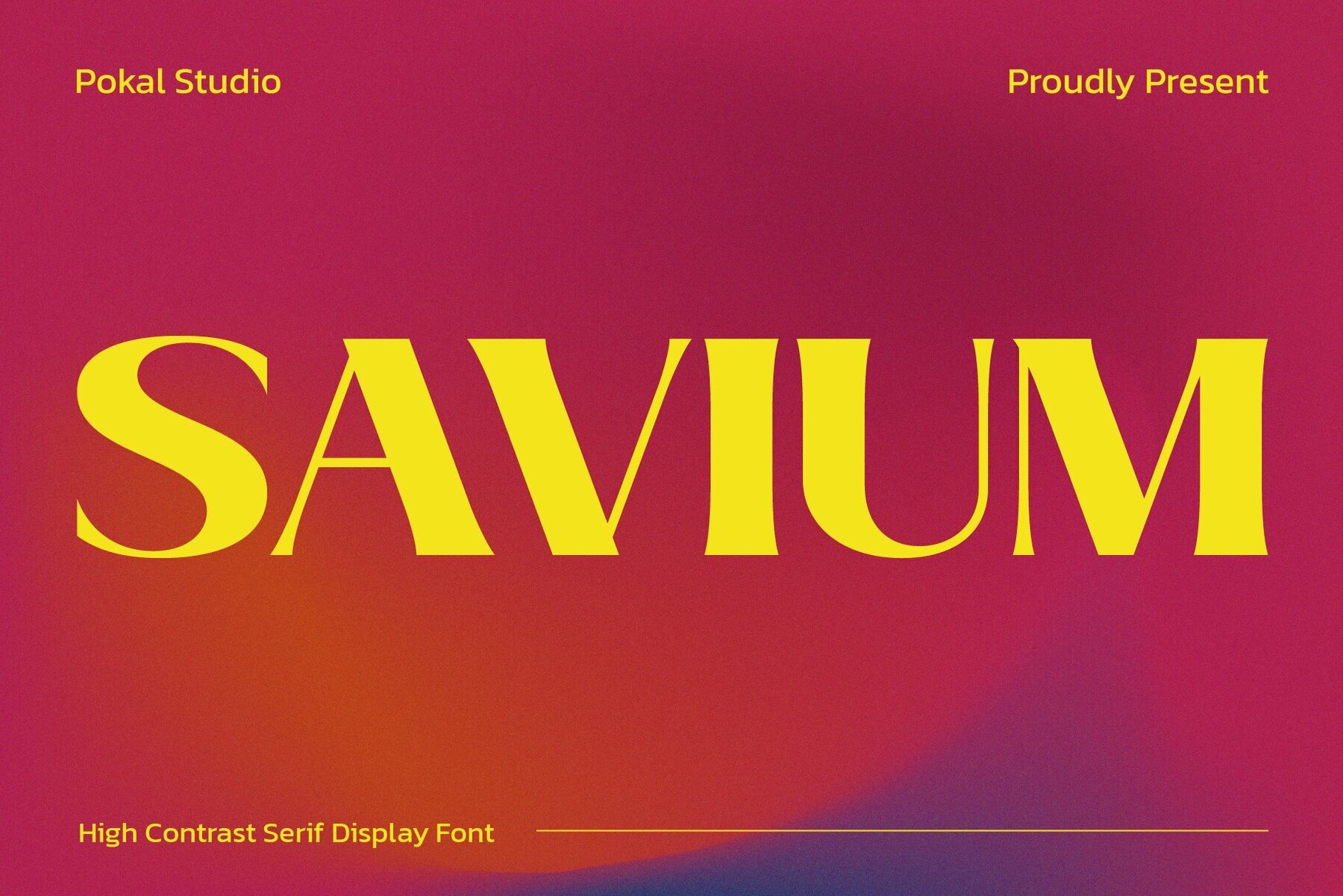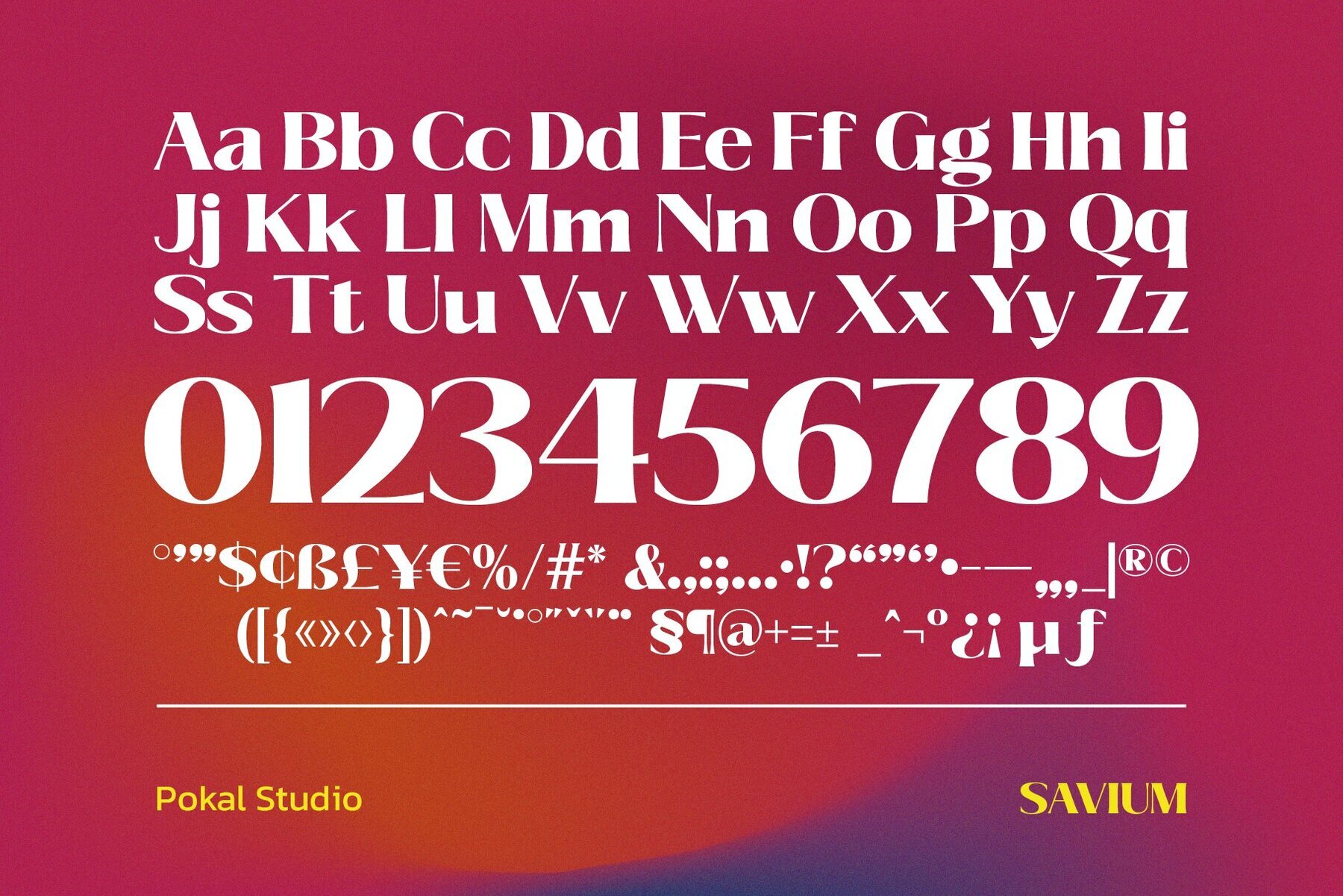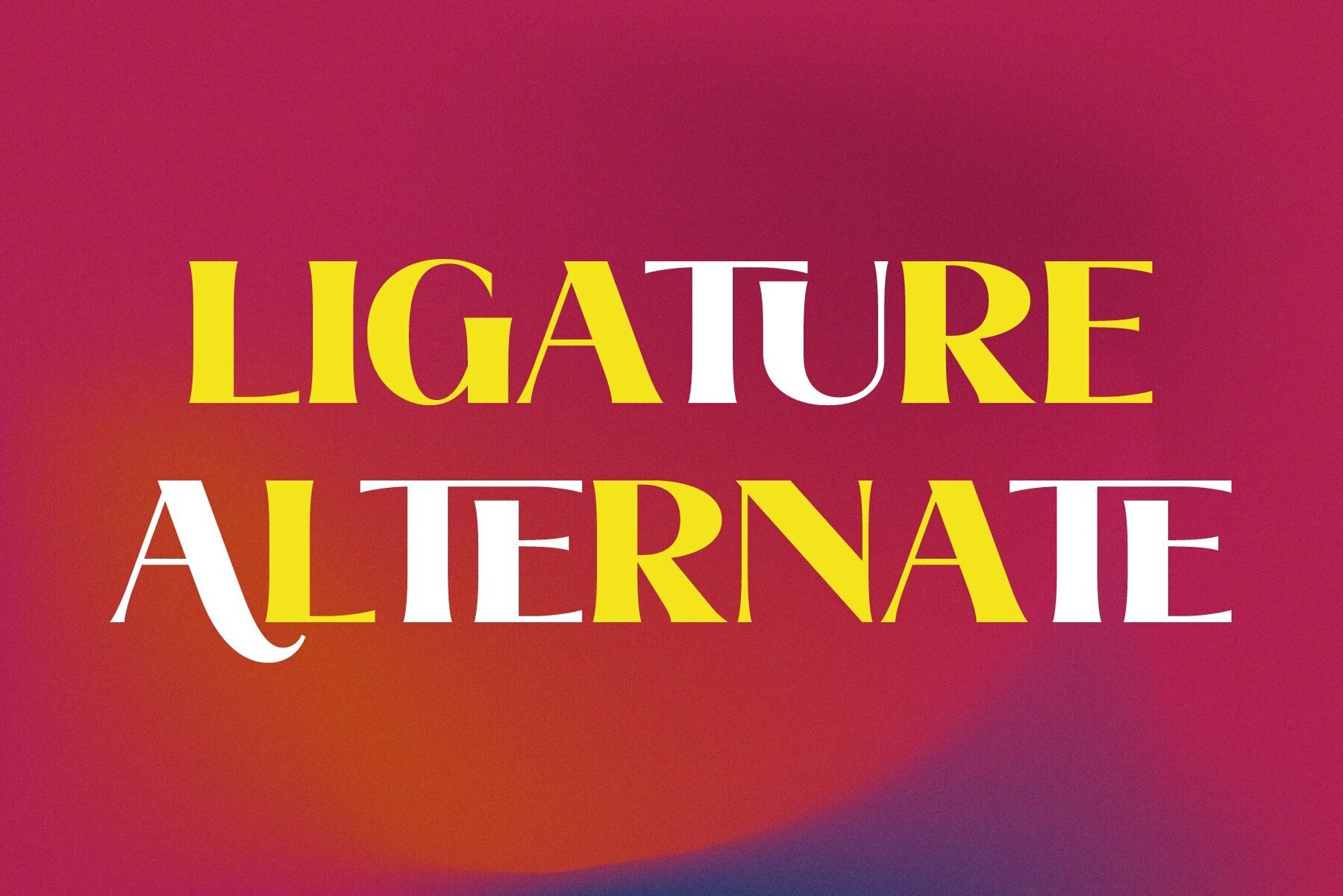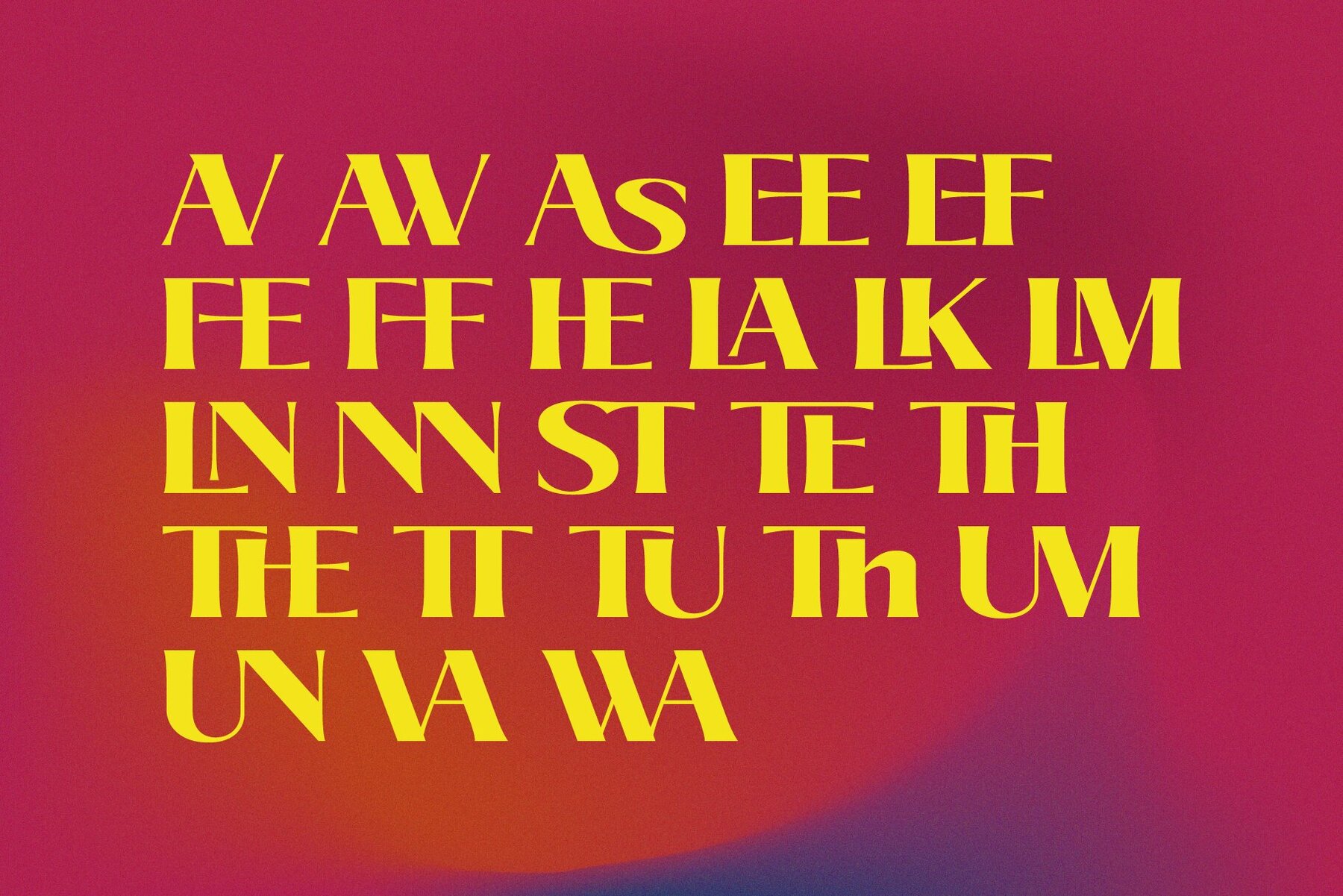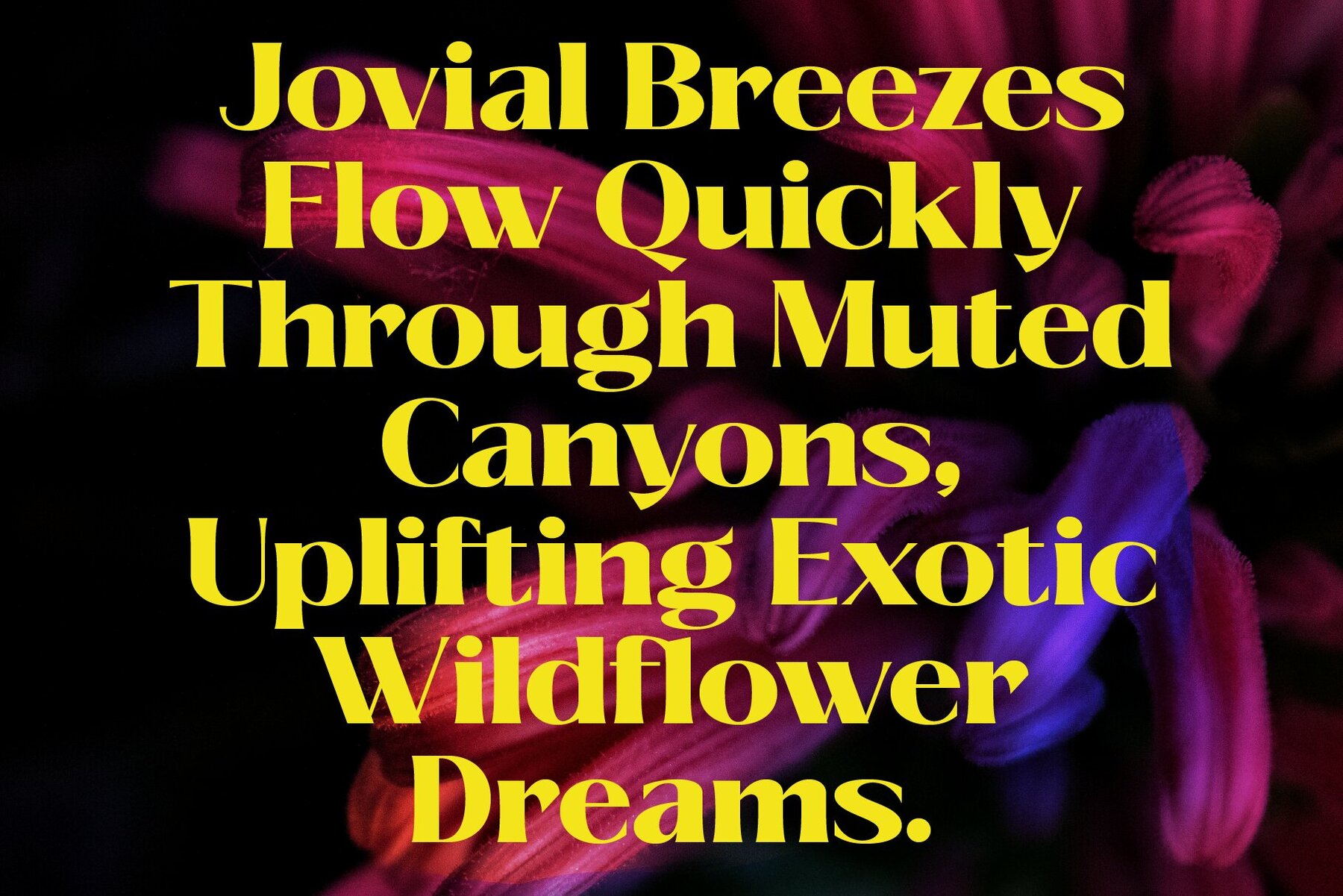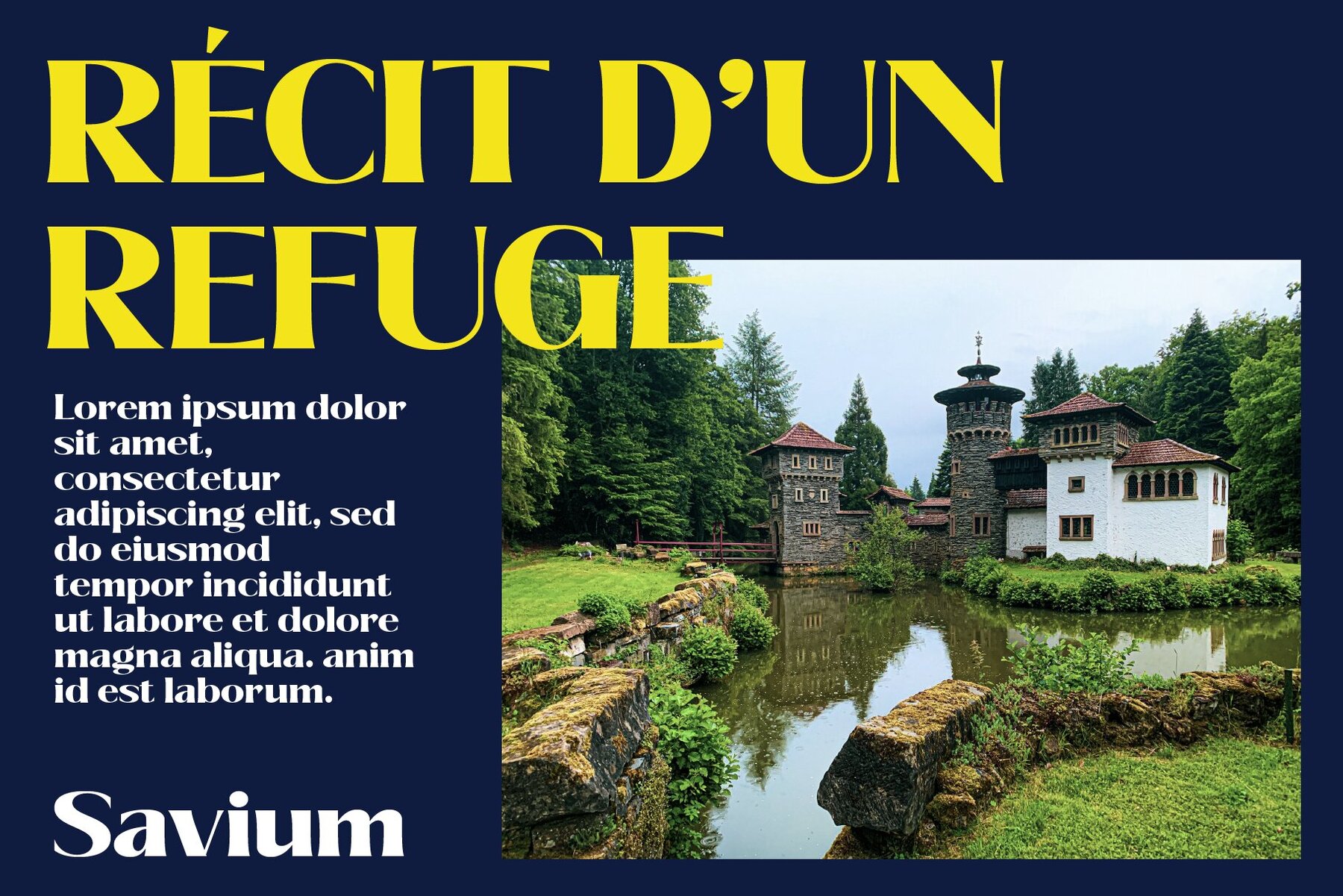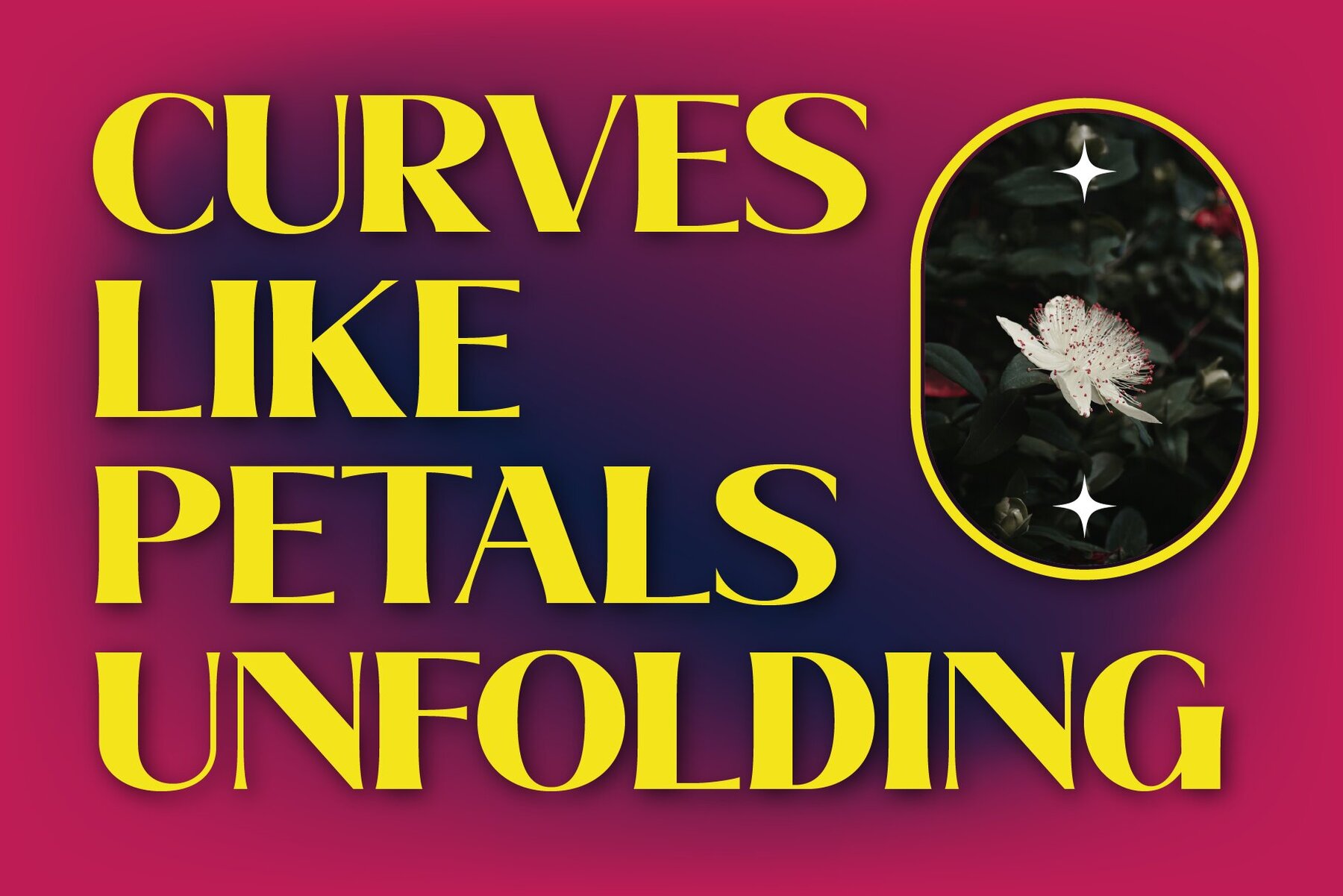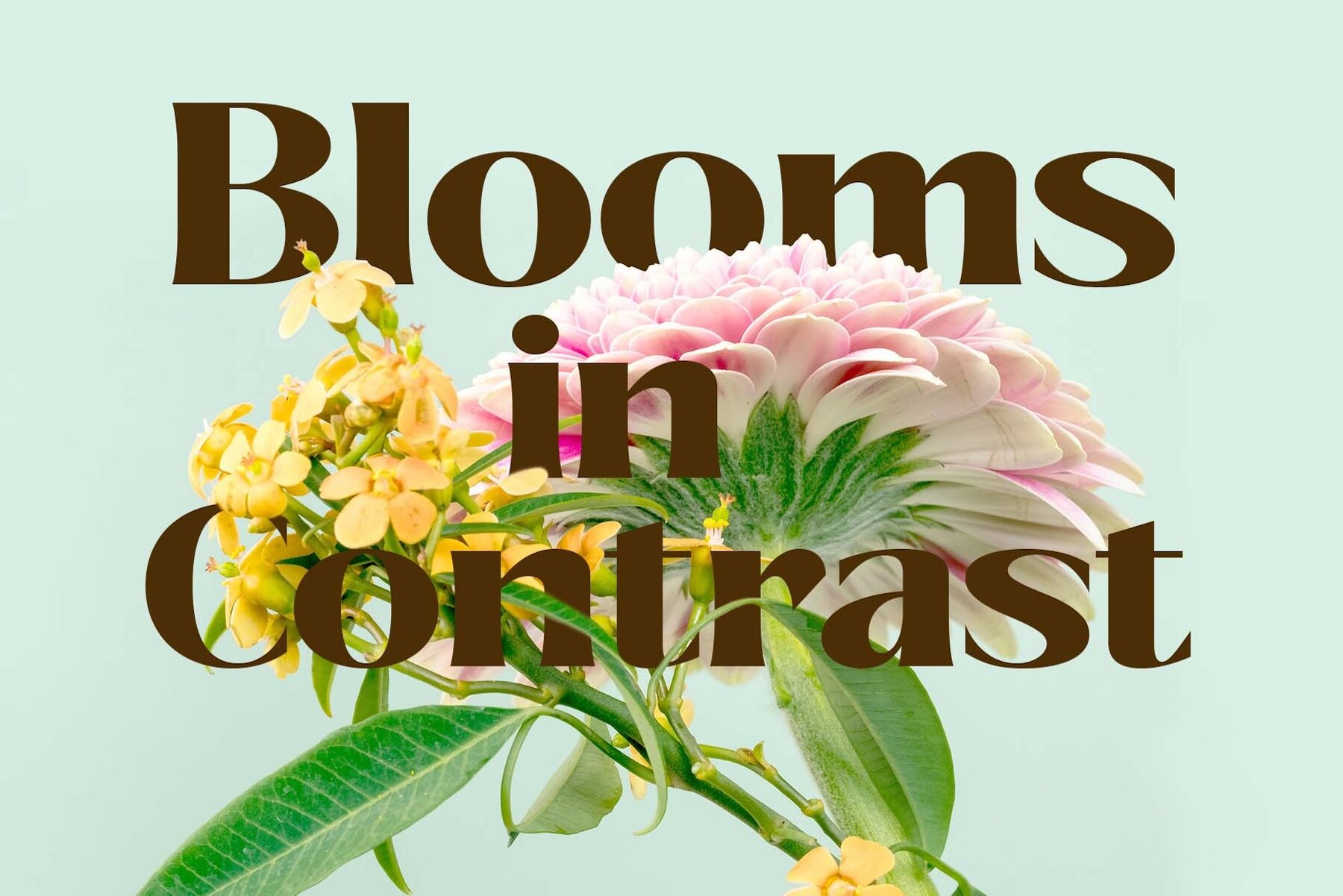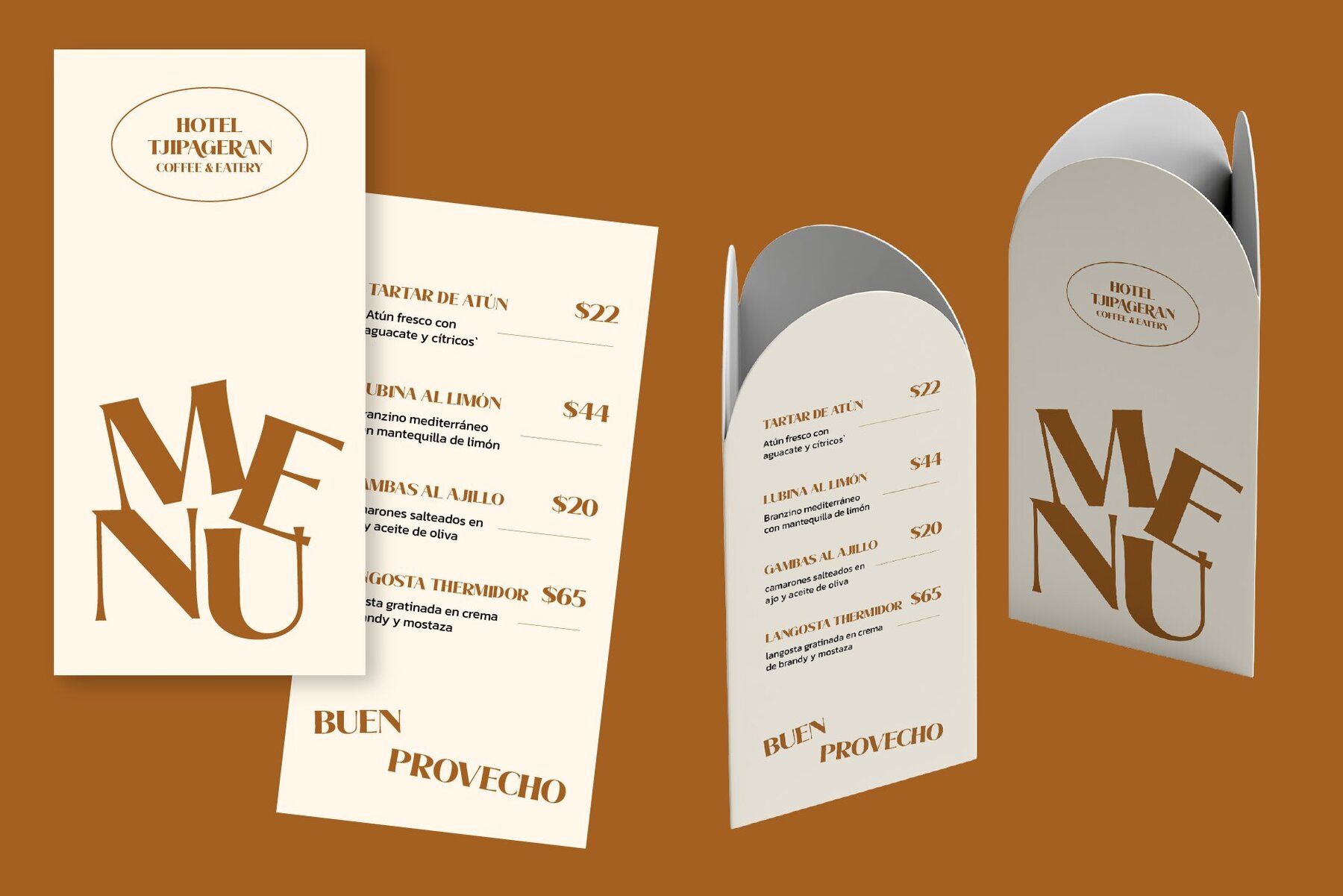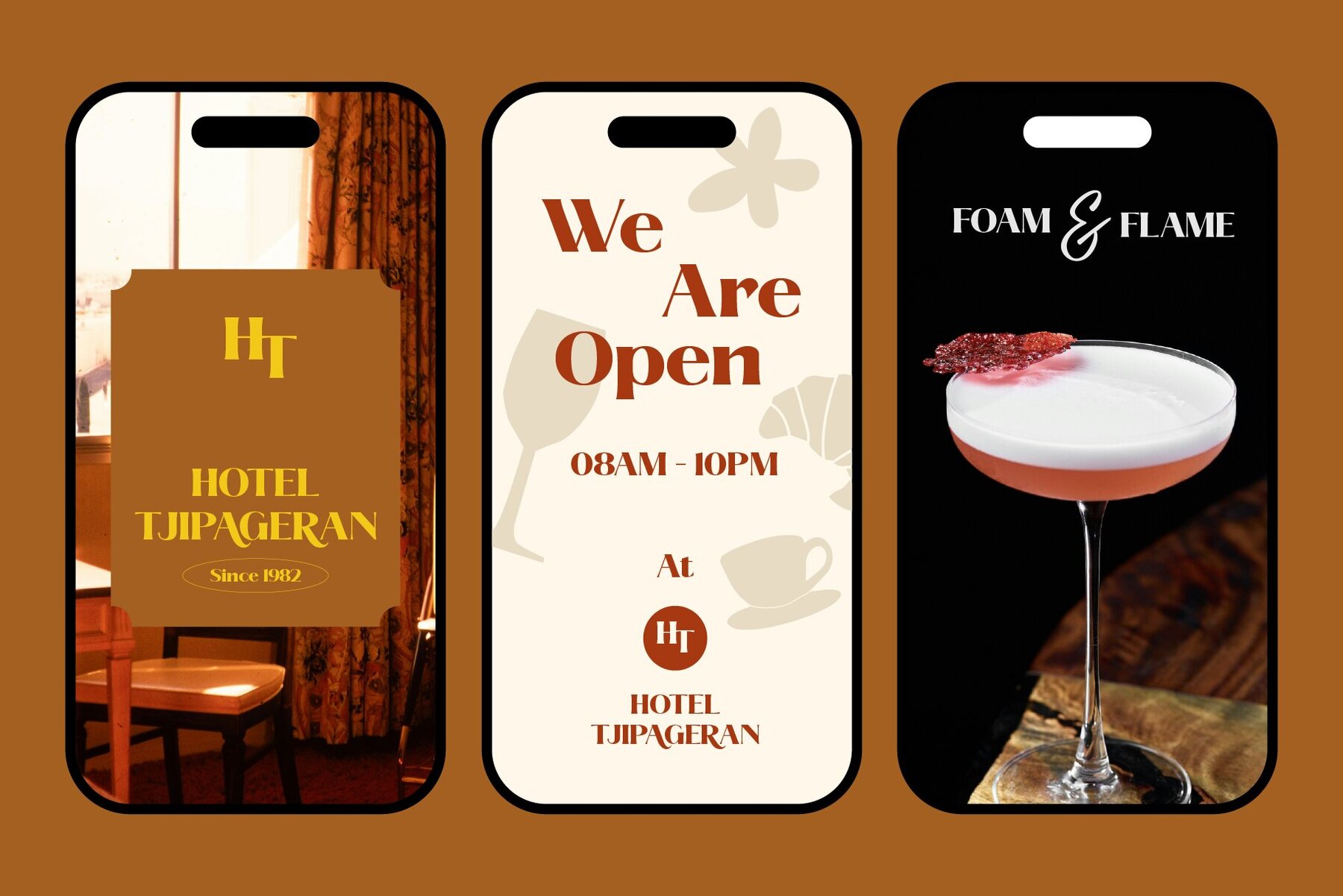
Savium Font
Savium
Savium is a refined serif display font that exudes elegance with its high-contrast design and classic proportions. Its sophisticated style makes it ideal for editorial design, branding, logos, packaging, posters, and magazine titles. Crafted for designers seeking a luxurious and timeless touch, Savium works seamlessly in both digital and print projects. This typeface offers stylistic alternates, ligatures, and multilingual support, providing the versatility needed to create distinctive and polished typography. Whether you're designing fashion branding, lifestyle editorials, wedding stationery, or modern packaging, Savium ensures a striking balance of style and readability. Photos and mockups are for preview purposes only.Savium: Elegant Serif Display Font